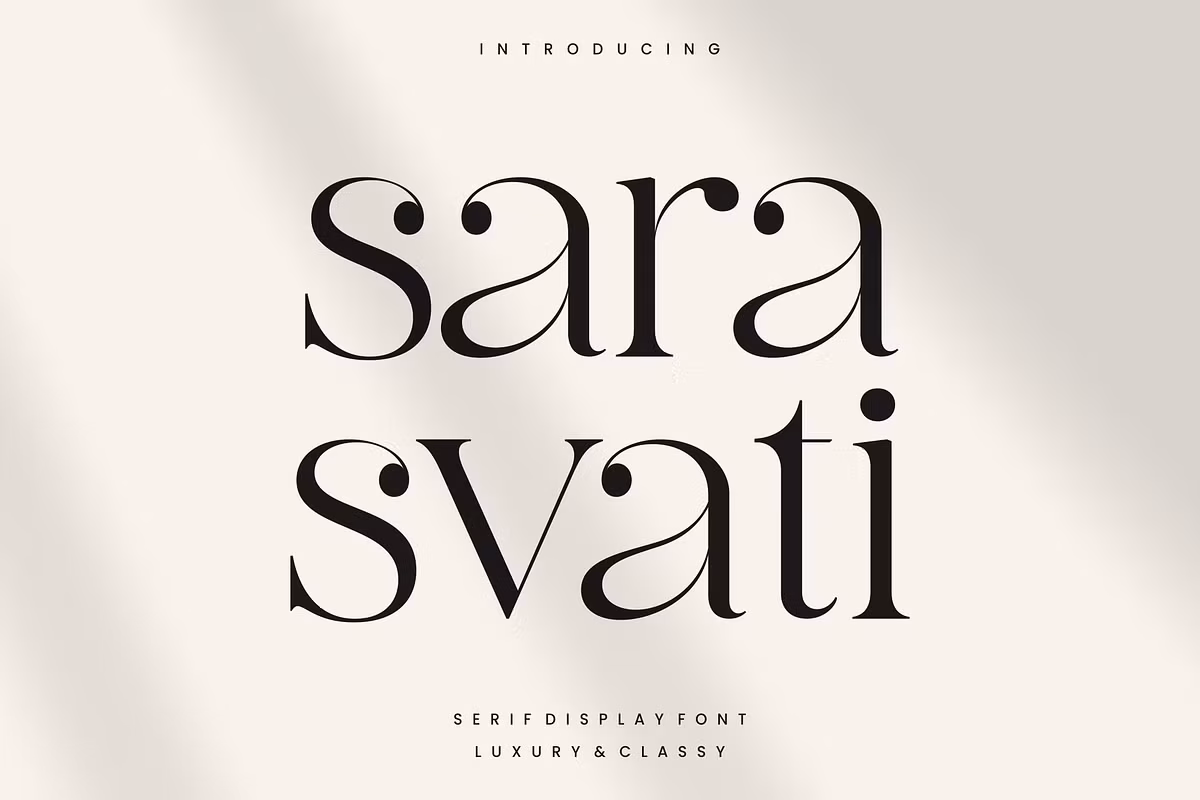
Sarasvati - Serif Display Font Free Download
Sarasvati – Serif Display Font Free Download
The font combines classic serif elegance with contemporary design, making it ideal for high-end designs, fashion branding, and creative promotional materials. It includes uppercase and lowercase letters, numerals, punctuation, and multilingual support, ensuring versatility across various design projects.
Whether you're working on luxury branding, designing eye-catching editorial layouts, or creating refined invitations, Sarasvati adds sophistication and impact to your typography.